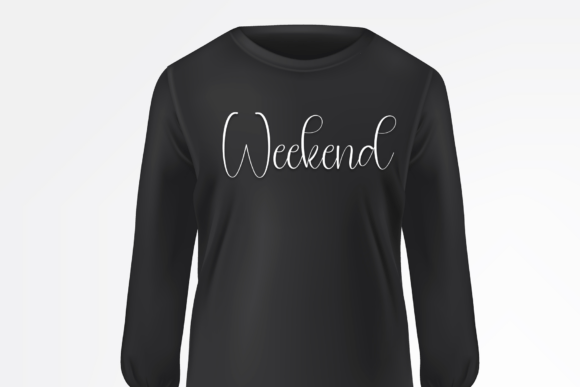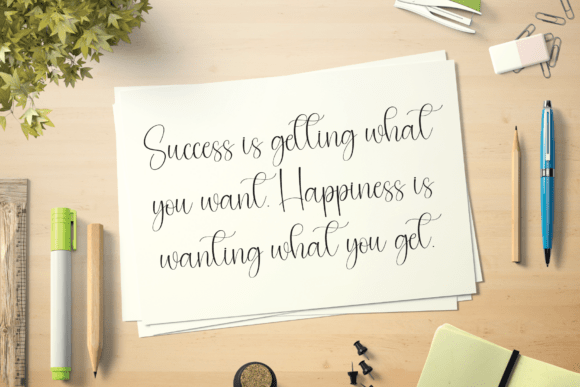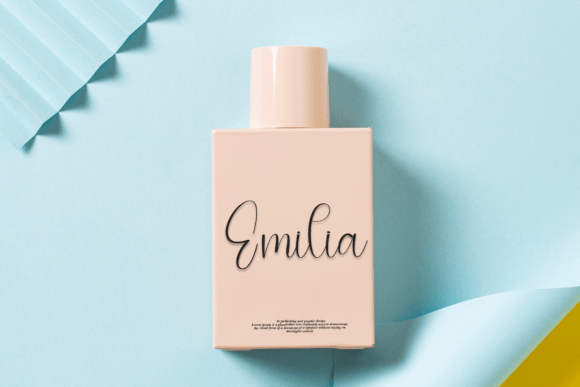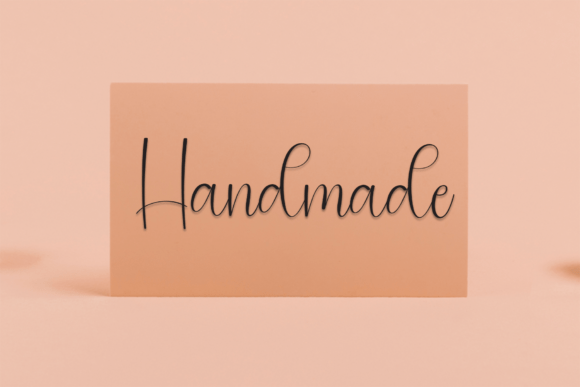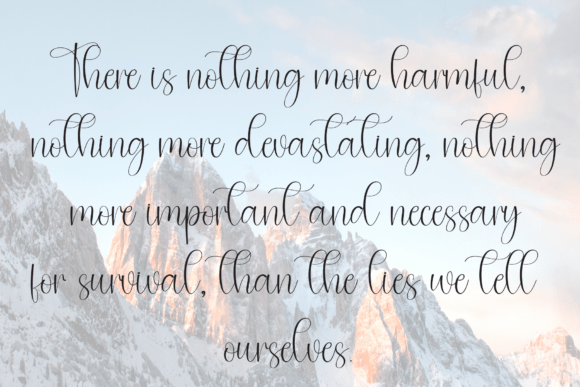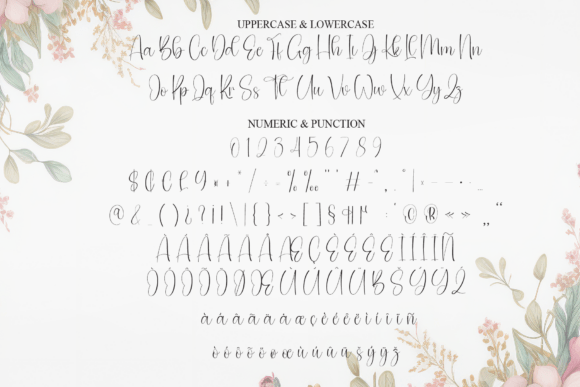
Introduction to Misterlatters Font Font
Fonts play a crucial role in design, and the Misterlatters Font font is a typeface that brings both character and versatility to any project. Whether you’re working on a branding project, a website, or a print design, the Misterlatters Font font offers a unique style that can elevate your work.
Misterlatters is a graceful handwritten script font that flows with elegance and calm, perfect for wellness branding, invitations, social media quotes, or any design that calls for a soft, personal touch.
With its smooth curves and sophisticated flourishes, it brings a sense of peace and beauty to your typography projects .
Key Features of Misterlatters Font Font
Why Choose Misterlatters Font Font?
The Misterlatters Font font is more than just a typeface – it’s a design tool that helps you communicate your message with style and clarity. Its unique character set and versatile design make it suitable for a wide range of applications, from elegant invitations to bold headlines.
With its carefully crafted letterforms and balanced proportions, the Misterlatters Font font ensures readability and visual appeal across all mediums.
What makes Misterlatters Font font special?
The Misterlatters Font font stands out with its unique design, exceptional readability, and versatility across various design applications.